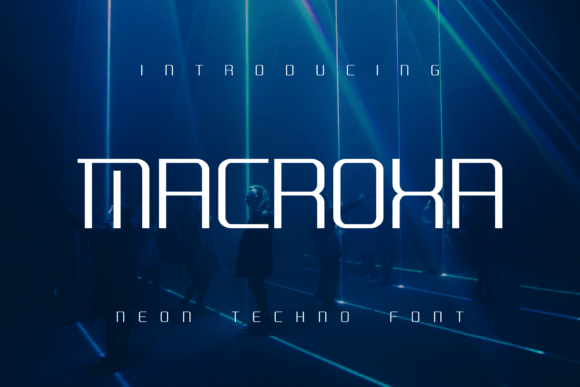
Enter the realm of musical expression and technological prowess with the captivating display font, Macroxa. This sleek and modern typeface echoes the vibrant pulse of music, disc jockeys, energetic revelries, and pulsating parties, capturing the raw emotions and electric atmosphere of these captivating events.
With its dynamic curves and sharp angles, Macroxa Font dances across the page, inviting the reader to embark on a sensory journey through the realm of sound and rhythm. Its bold strokes and sweeping flourishes evoke the energy of the dance floor, while its intricate details hint at the intricate layering of musical melodies.
But Macroxa Font's versatility transcends the world of music, extending its reach to encompass the realm of technology. It perfectly complements the sleek lines and futuristic aesthetics of laptops, smartphones, robotics, and the vast expanse of the internet. It serves as an apt choice for describing techno products, capturing their innovative essence and cutting-edge design.
Immerse yourself in the rhythmic energy of the night with Macroxa Font, where music and technology intertwine in perfect harmony. Its captivating glyphs and dynamic ligatures create a visually stunning tapestry that resonates with the raw power of sound and the digital realm. Unleash your creativity and let Macroxa Font elevate your designs to new heights.